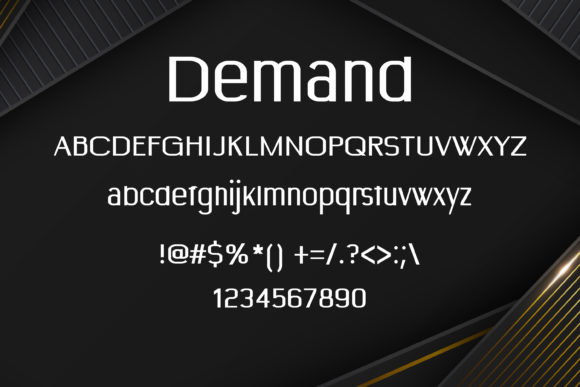
Introducing Demand Font: Elevate Your Crafting Projects with a Modern Twist
Are you a designer or crafter looking for a font that adds a touch of elegance and personality to your projects? Look no further than Demand Font, a modern and elegant sans serif font that’s perfect for any crafting project that requires a personalized look.
What is Demand Font?
Demand Font is a sleek and sophisticated sans serif font that’s designed to make your crafting projects stand out. Its clean lines, elegant curves, and modern aesthetic make it an ideal choice for a wide range of applications, from DIY crafts to professional design projects.
Key Features of Demand Font
• Modern and Elegant Design: Demand Font boasts a contemporary design that’s both stylish and sophisticated.
• Sans Serif Style: The font’s sans serif style gives it a clean and minimalist look that’s perfect for modern designs.
• Highly Versatile: Demand Font can be used for a wide range of crafting projects, from paper crafts to woodworking and beyond.
• Easily Readable: The font’s clear and concise design makes it easy to read, even at smaller sizes.
Why Choose Demand Font?
So why choose Demand Font for your crafting projects? Here are just a few reasons:
• Add a Personal Touch: With Demand Font, you can add a personal touch to your crafting projects that sets them apart from the rest.
• Stand Out from the Crowd: The font’s unique design ensures that your projects will stand out from the crowd and grab attention.
• Perfect for DIY Projects: Demand Font is ideal for DIY projects, such as scrapbooking, card making, and other paper crafts.
• Scalable Design: The font is designed to be scalable, making it perfect for use on a variety of materials and surfaces.
How to Use Demand Font in Your Crafting Projects
Using Demand Font in your crafting projects is easy! Here are a few ideas to get you started:
• Scrapbooking: Add a personal touch to your scrapbook pages with Demand Font.
• Card Making: Use Demand Font to create custom greeting cards for any occasion.
• Paper Crafts: Demand Font is perfect for paper crafts, such as origami, paper cutting, and more.
• Woodworking: Use Demand Font to add a personal touch to your woodworking projects, such as customized signs and boxes.
Tips for Getting the Most Out of Demand Font
Here are a few tips for getting the most out of Demand Font:
• Experiment with Different Sizes: Demand Font is designed to be scalable, so experiment with different sizes to find the one that works best for your project.
• Pair with Other Fonts: Demand Font pairs well with other fonts, so don’t be afraid to experiment with different combinations.
• Use in Combination with Images: Demand Font looks great in combination with images, so consider using it to add a personal touch to your photos and illustrations.
In conclusion, Demand Font is a modern and elegant sans serif font that’s perfect for any crafting project that requires a personalized look. With its clean lines, elegant curves, and highly versatile design, Demand Font is sure to become a favorite among designers and crafters alike. So why wait? Download Demand Font today and start elevating your crafting projects with a modern twist!